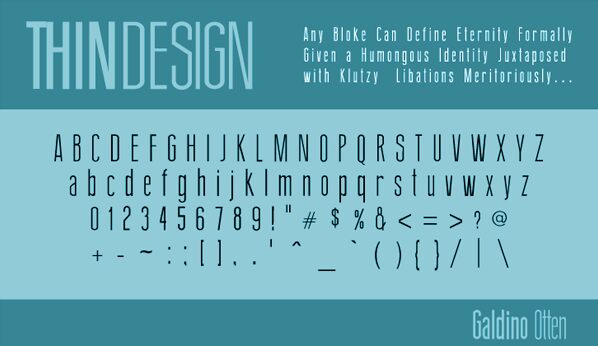
Thin Design by Galdino Otten is a free ultra-condensed sans serif with exceptionally tall proportions and hairline strokes. Its narrow letters form a crisp vertical pattern.
Fashion publishing suits its elegant economy, especially in magazine mastheads where the remarkably slim silhouette feels measured and deliberate rather than cramped. Perfume packaging can use the same precision, and boutique branding gains a restrained, upscale voice. Event posters and gallery graphics are another natural setting, since the towering forms can echo architectural lines and exhibition signage.